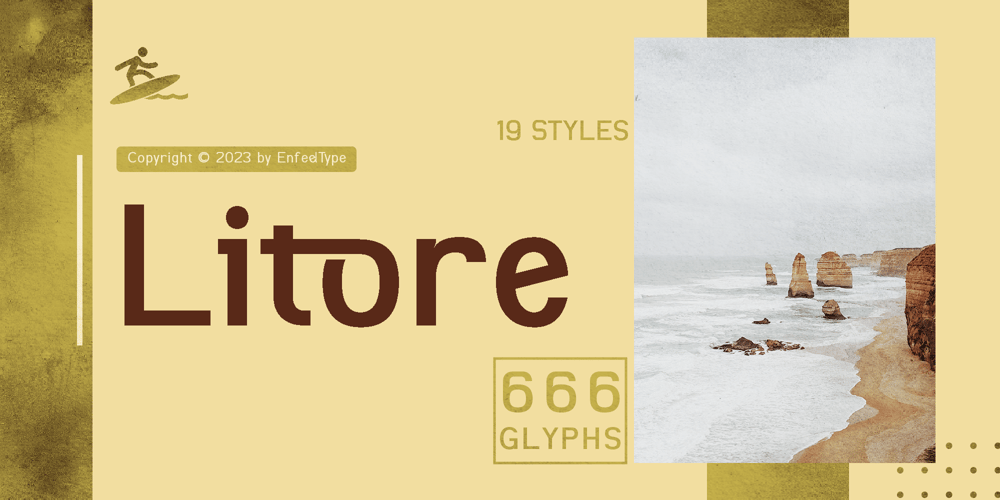
Litore Font Family was designed by Muhammad Naufal and published by Enfeeltype. Litore contains 19 styles and family package options. This font represents the wonders of the sea, with an engraved design that brings waves to mind when reading.Litore is a clean and elegant font with clear strokes and a modern style. Life is just one big journey, and the path you choose has a great impact on your future and overall happiness. So if you’re looking for inspiration on what represents beauty in life and love, Litore is the perfect font to spend some time with.